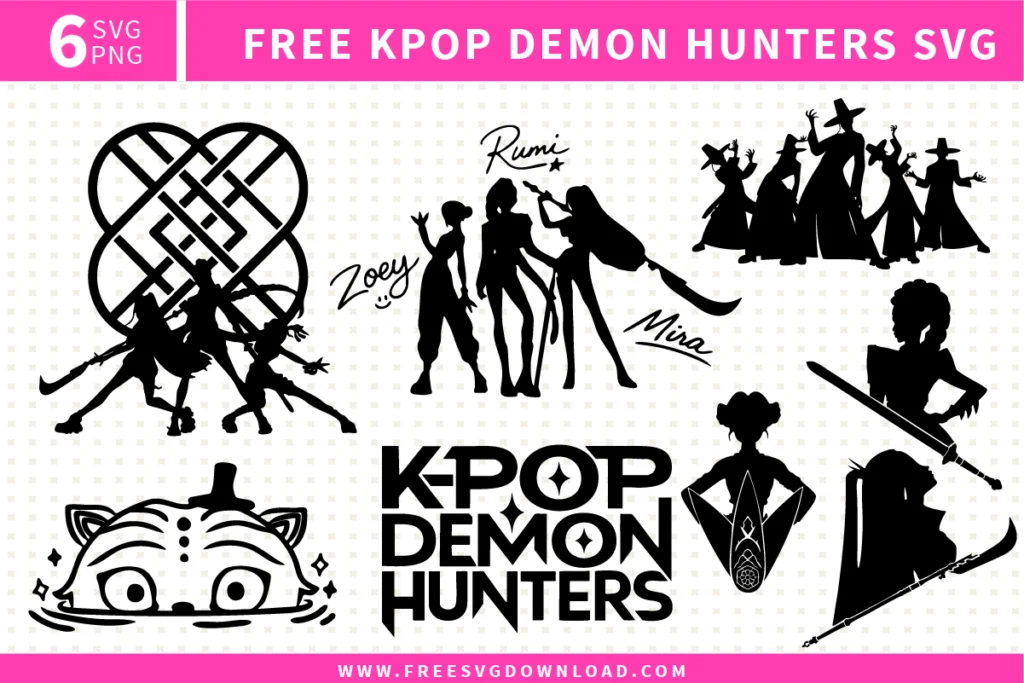
Kpop Demon Hunters Font Free SVG File
A bold and sharp Kpop Demon Hunters free svg files font set. The design features a modern, aggressive typography style with pointed edges, geometric shapes, and star-diamond accents inside characters like O and Q. This OTF and SVG font bundle includes a full uppercase alphabet, numbers 0-9, and special punctuation marks in a clean black and white display.
• Kpop Demon Hunters Font SVG: Full uppercase alphabet and number set in a sharp angular display style, with geometric cut sections, stylized punctuation, and a matching font-inspired character layout.